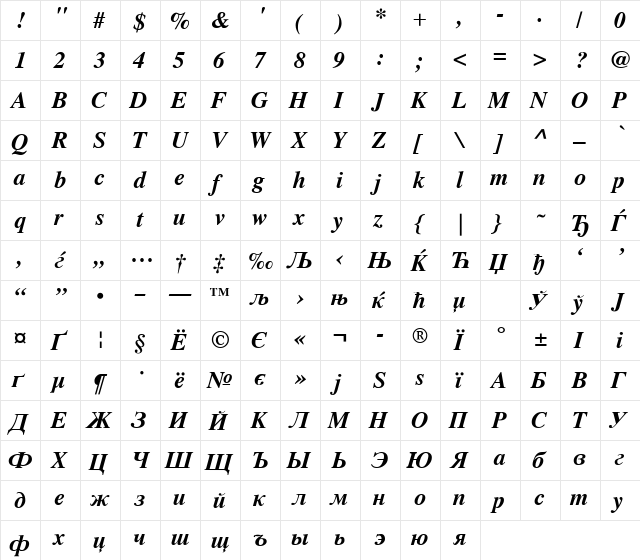
VremyaFWF Bold Italic
Design Context for VremyaFWF Typeface
VremyaFWF is a composed and adaptable typeface that performs quietly and consistently across a wide range of design contexts. The dynamic lean of this cut emphasises speed and emphasis in any layout. Its bold stroke weight gives it real presence on the page.
Pro Tip: Try VremyaFWF for annotation and caption copy alongside an upright companion — the contrast in angle creates a dynamic but ordered typographic system.